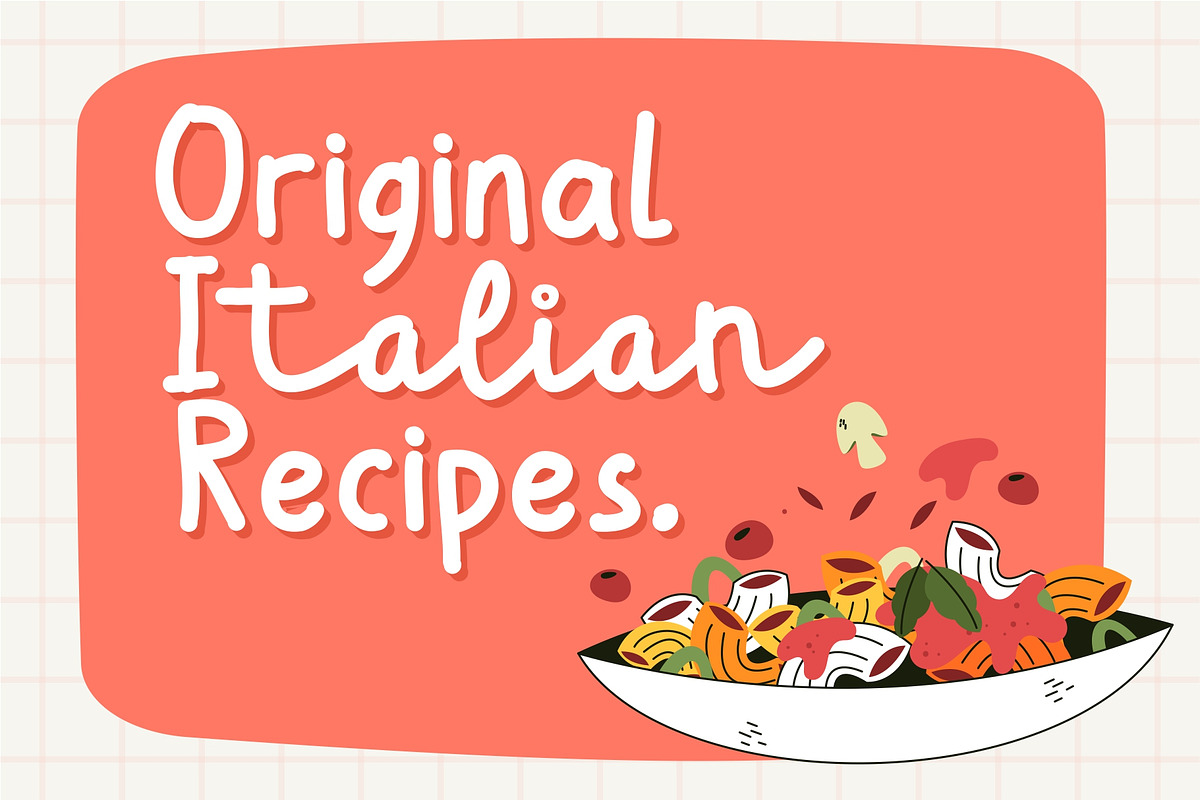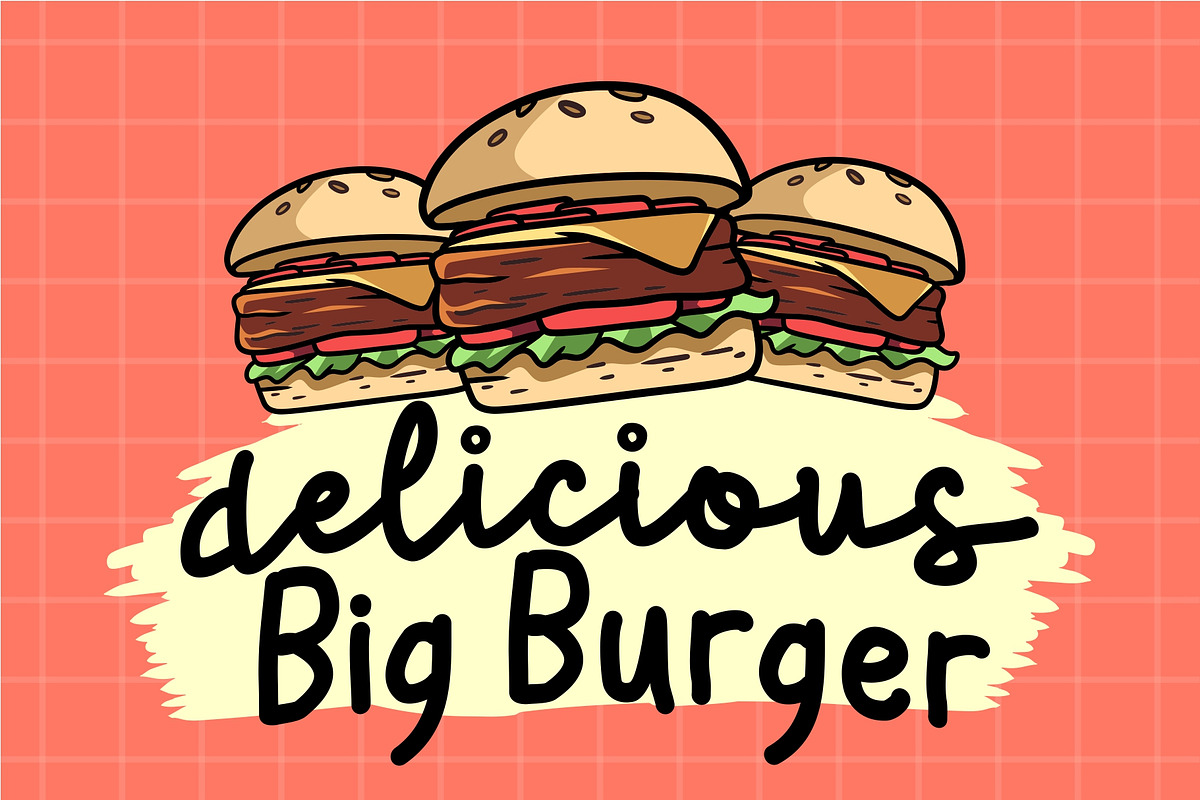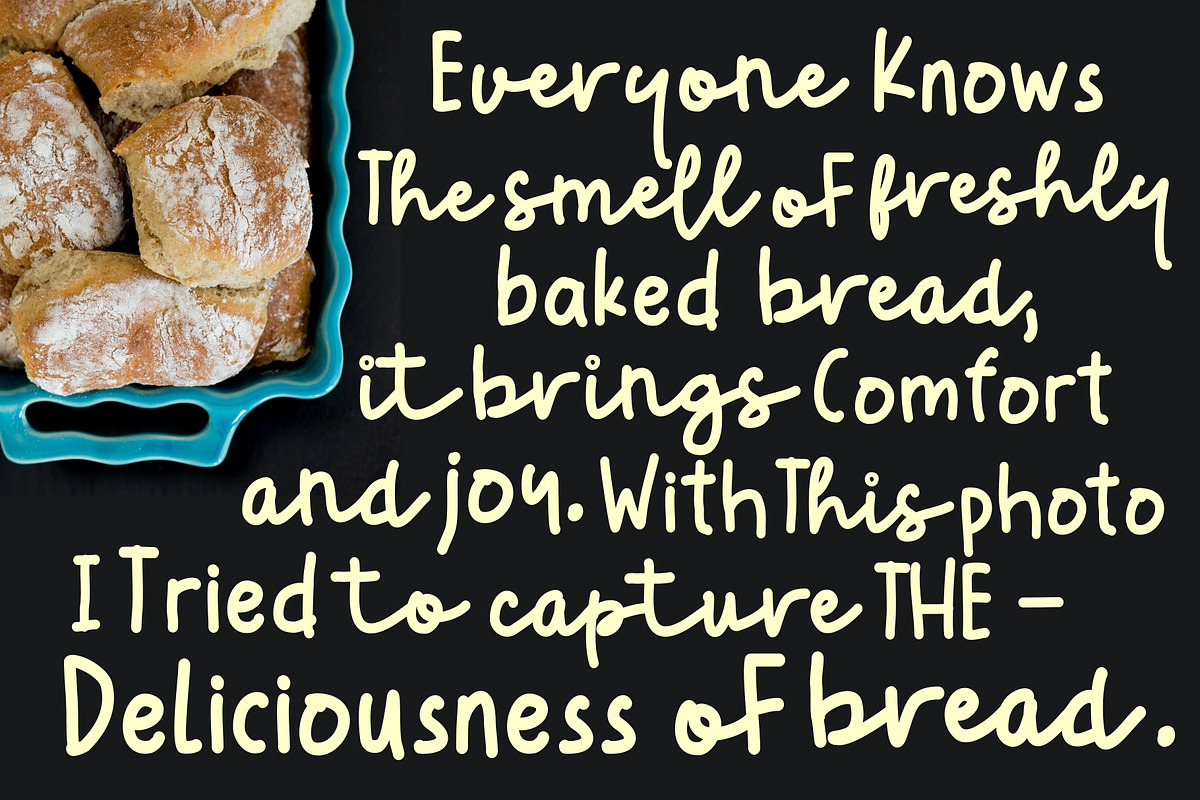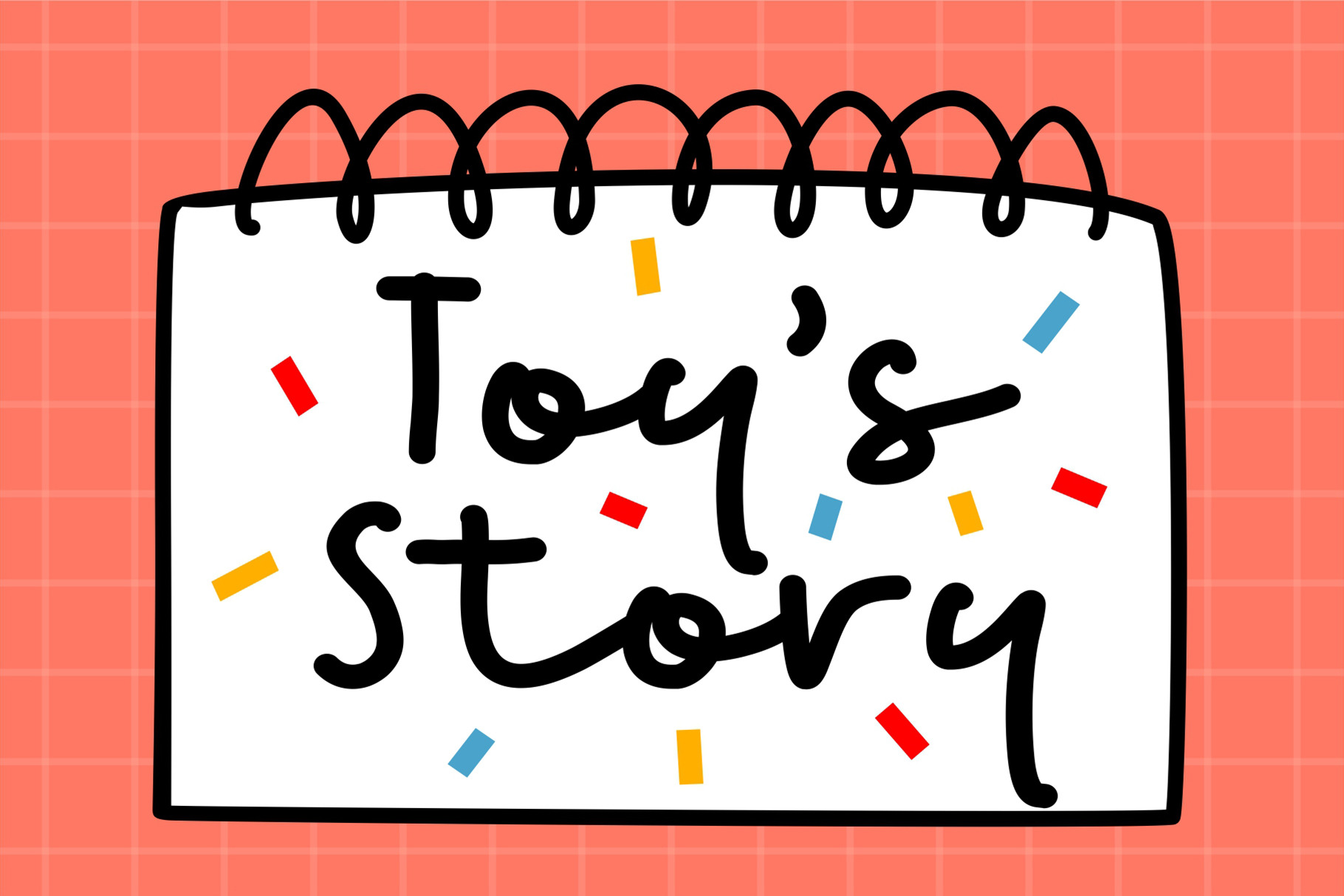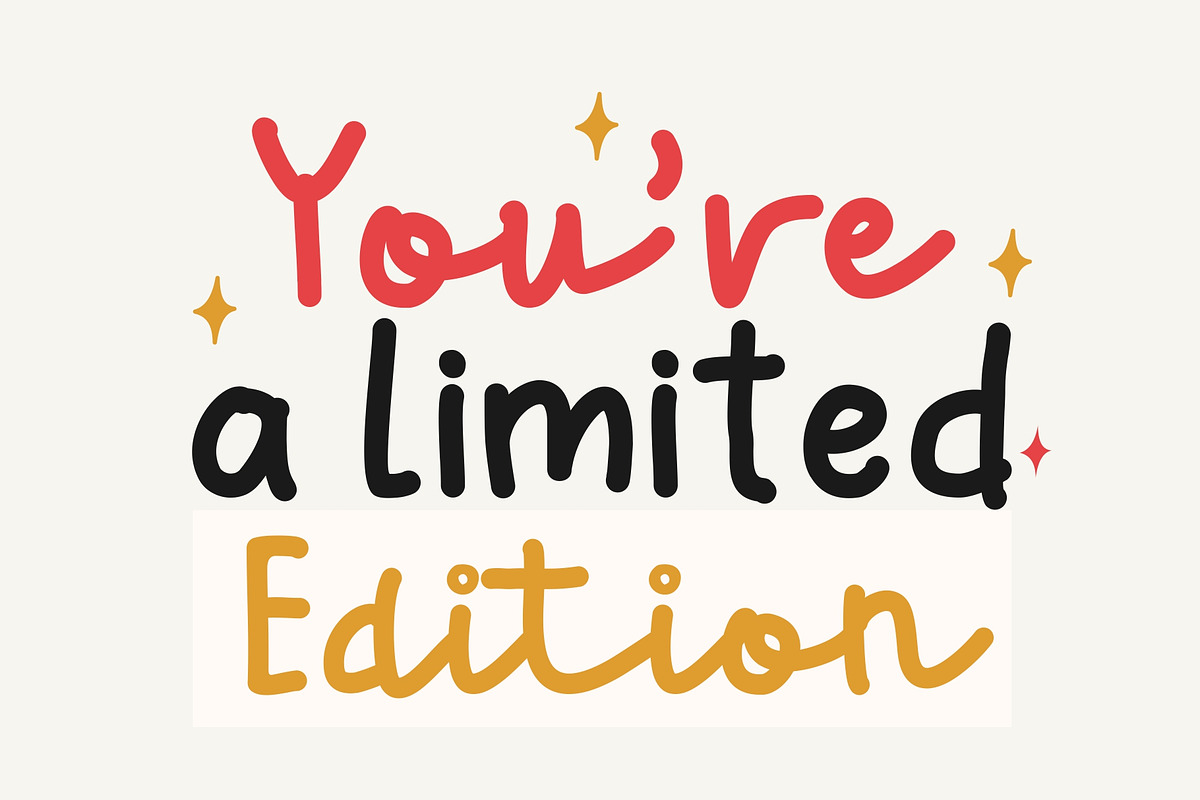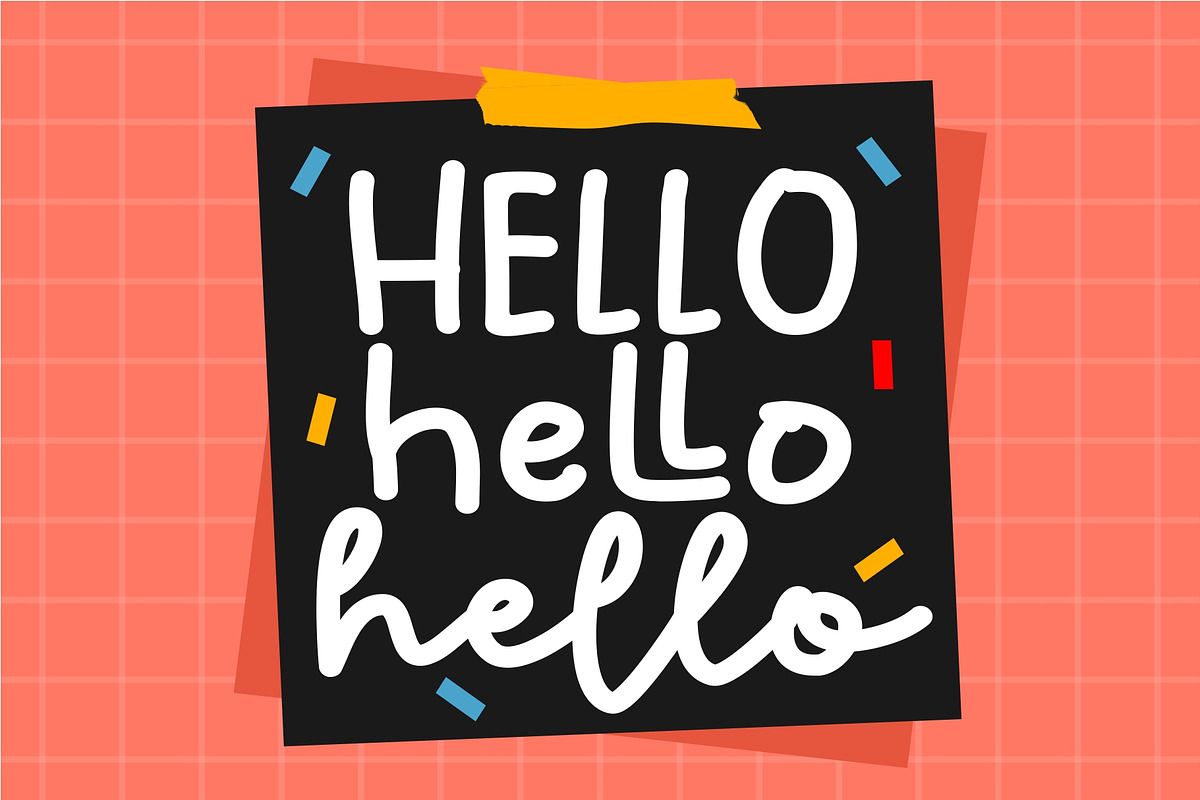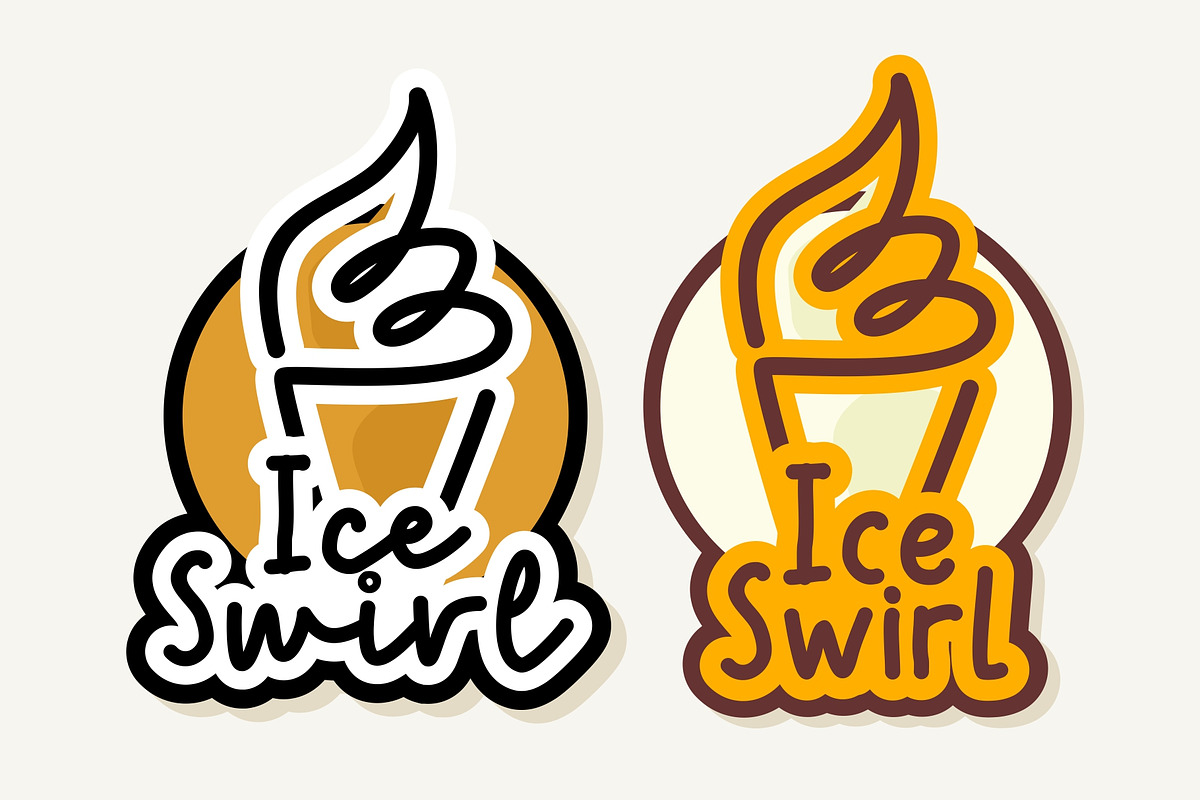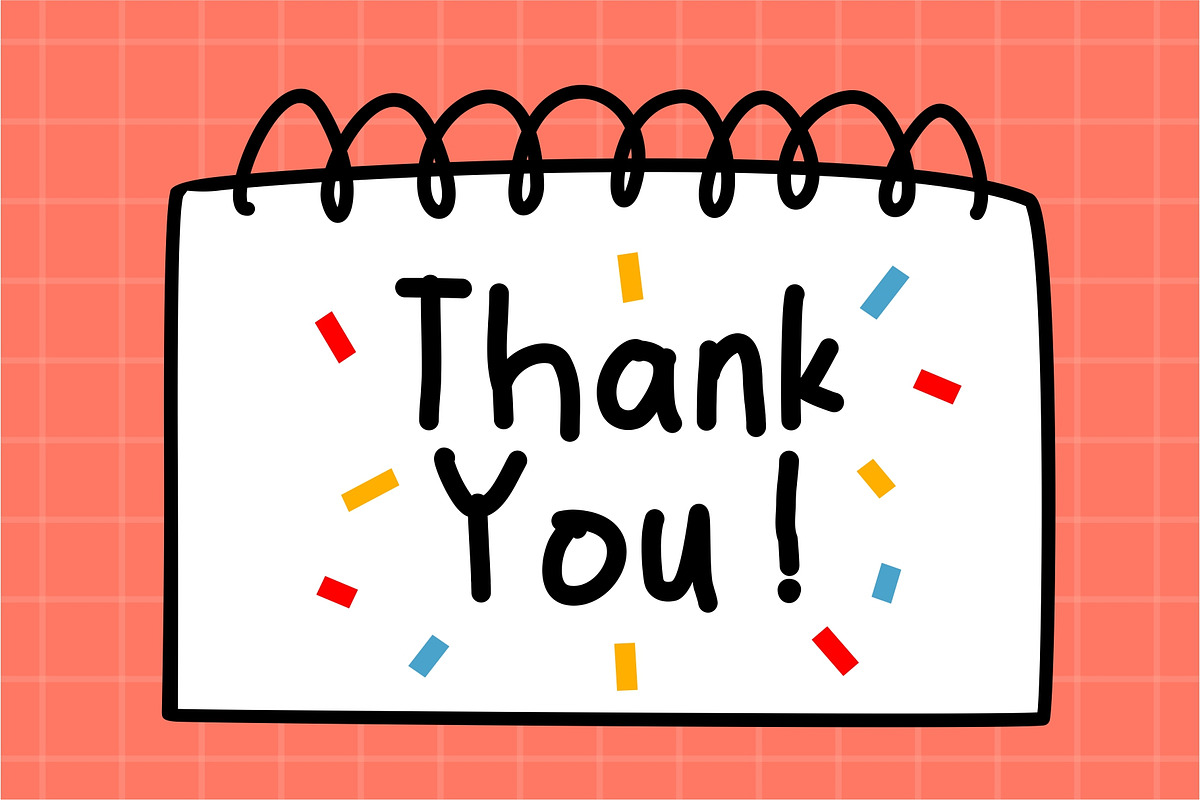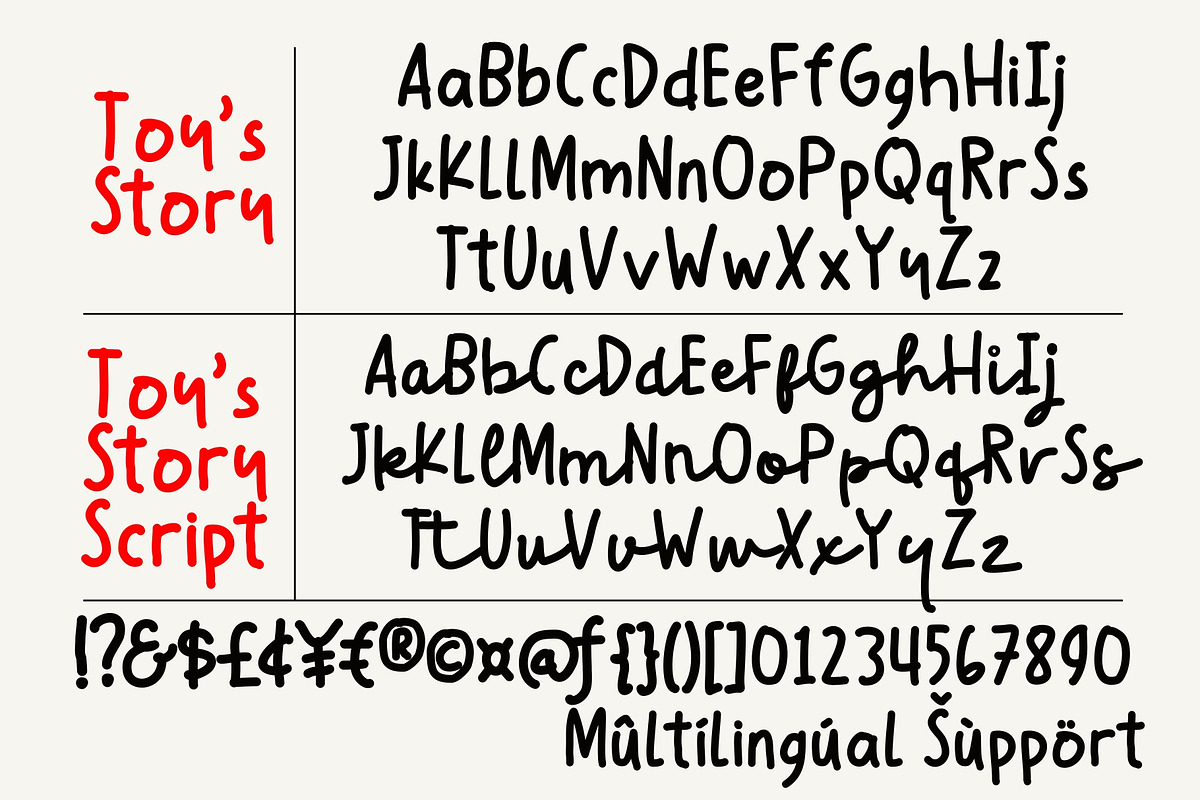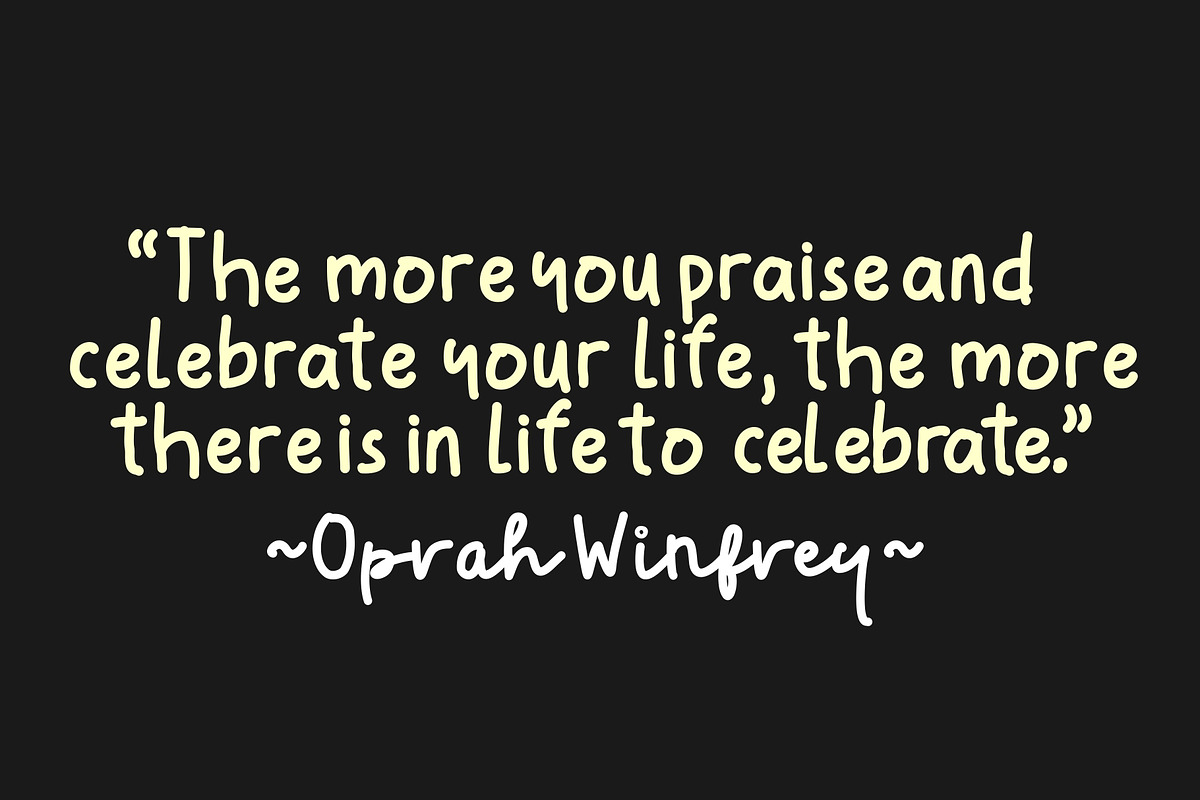
Toy's Story - Handwritting Font Duo
Say hello for Toy's Story, letter made to appear as if they were made with a thick marker on a note. Toy's story has two different styles which are simple and complementary.
Toy's Story perfect for crafting, branding, invitation, stationery, wedding designs, social media posts, advertisements, product packaging, product designs, label, Posters, photography, special events, Quotes , Marketing or anything.
- numeric & Multilingual support